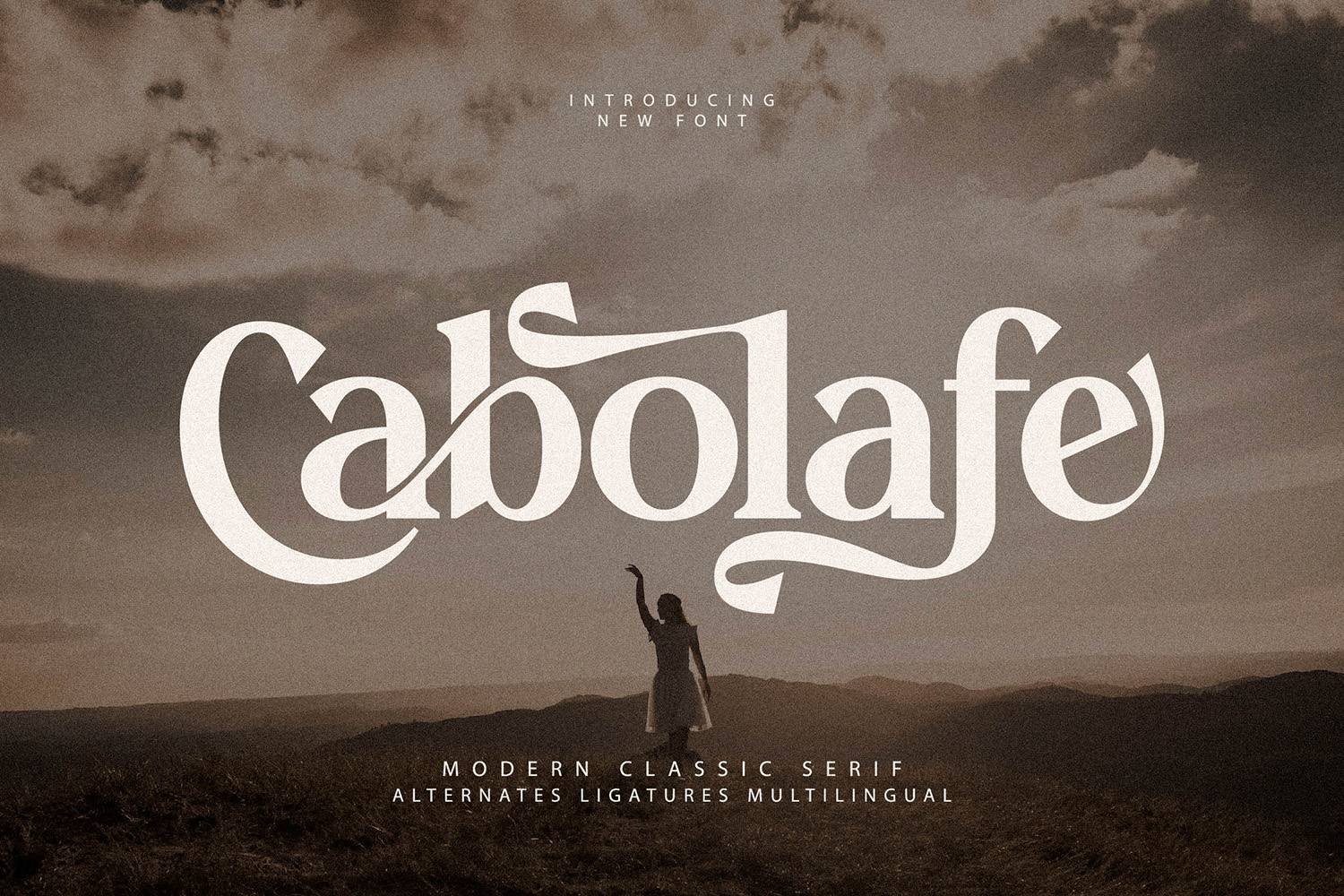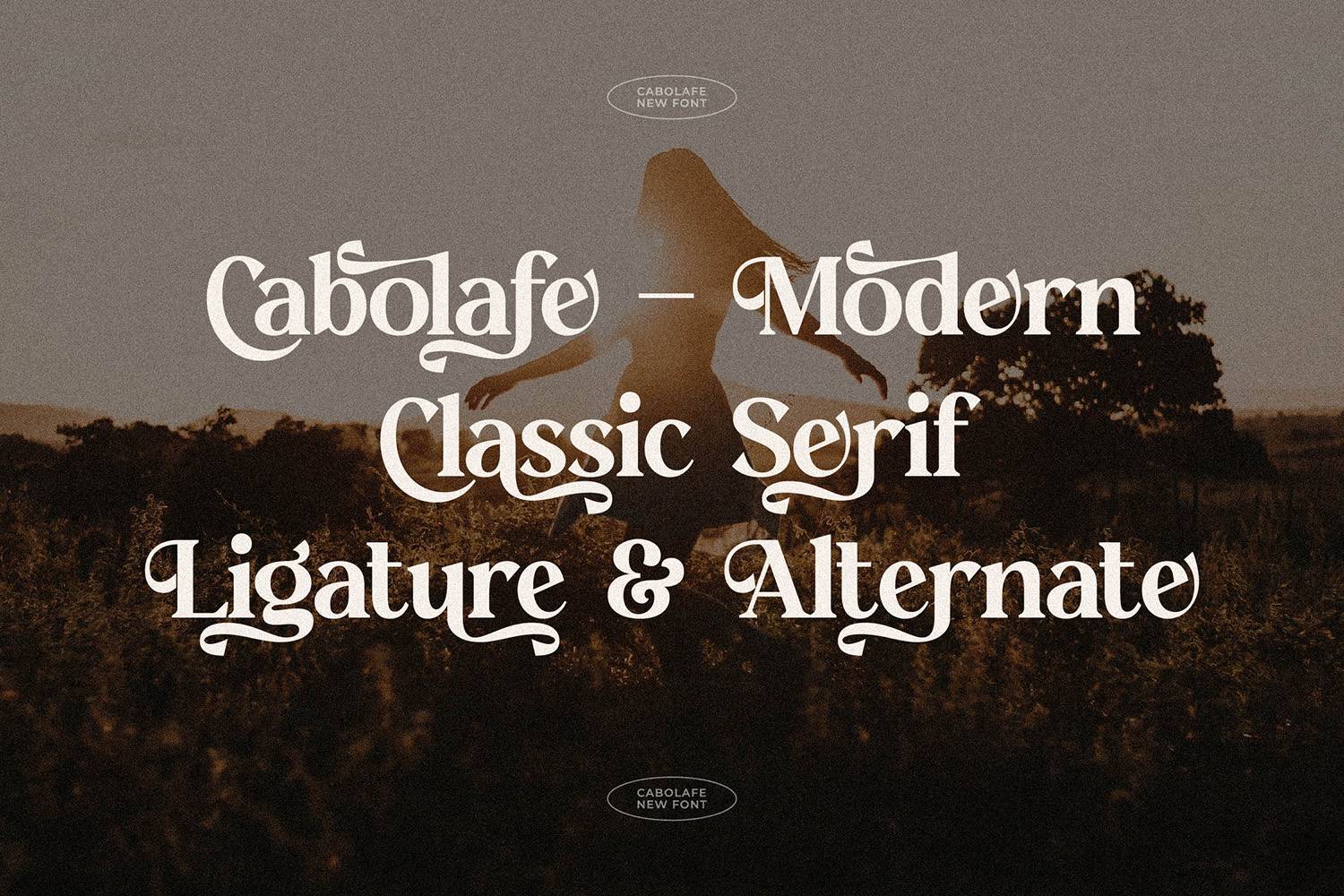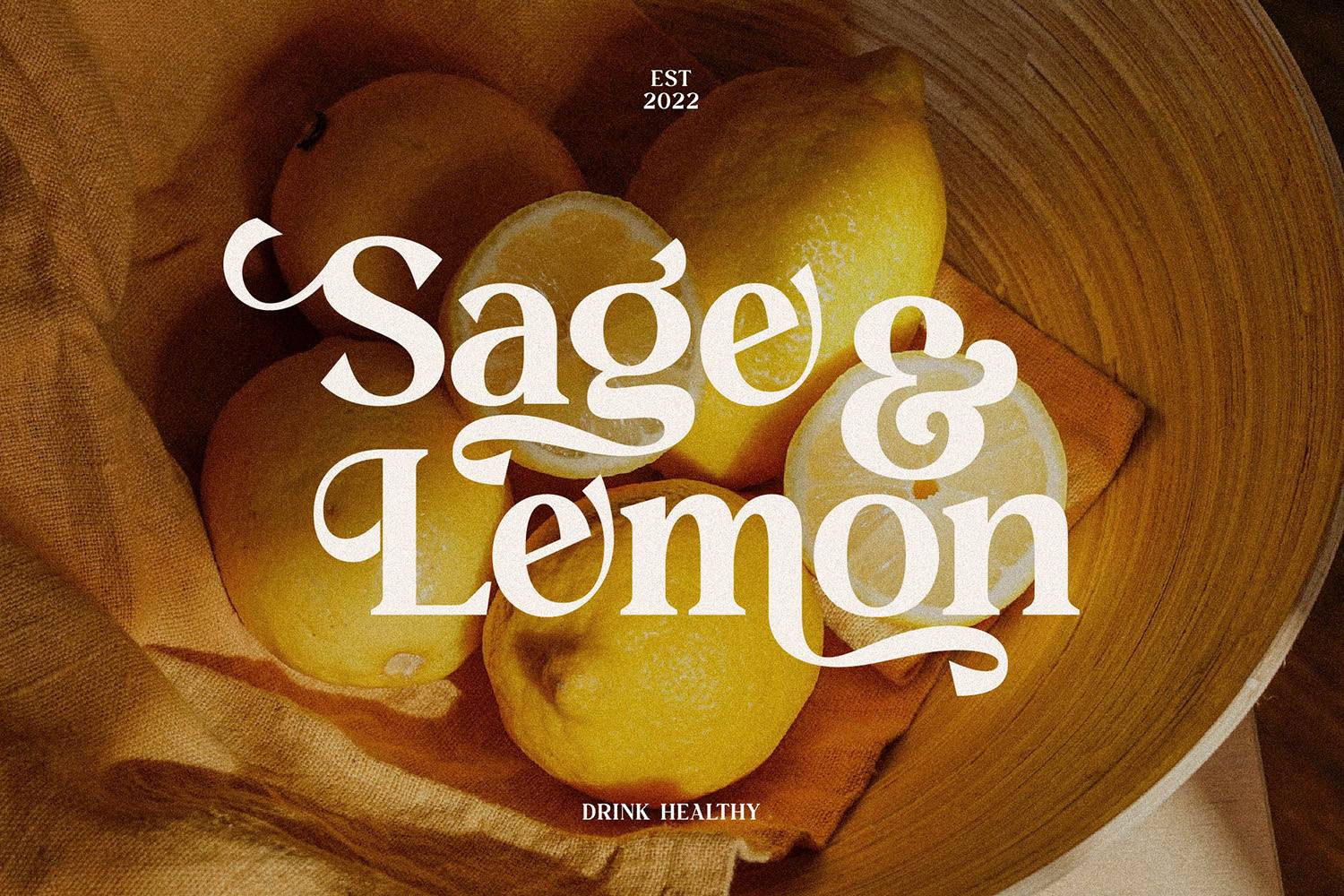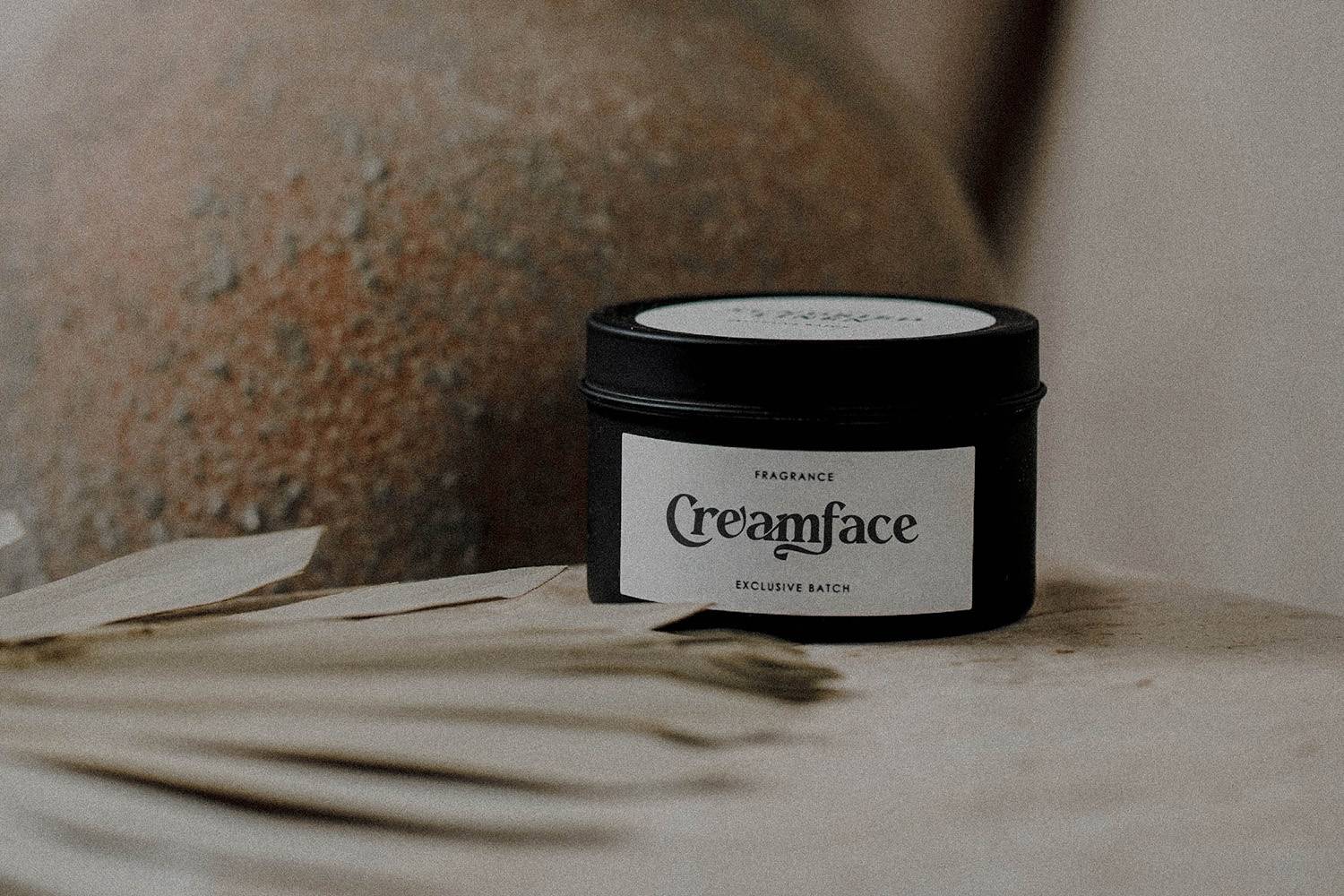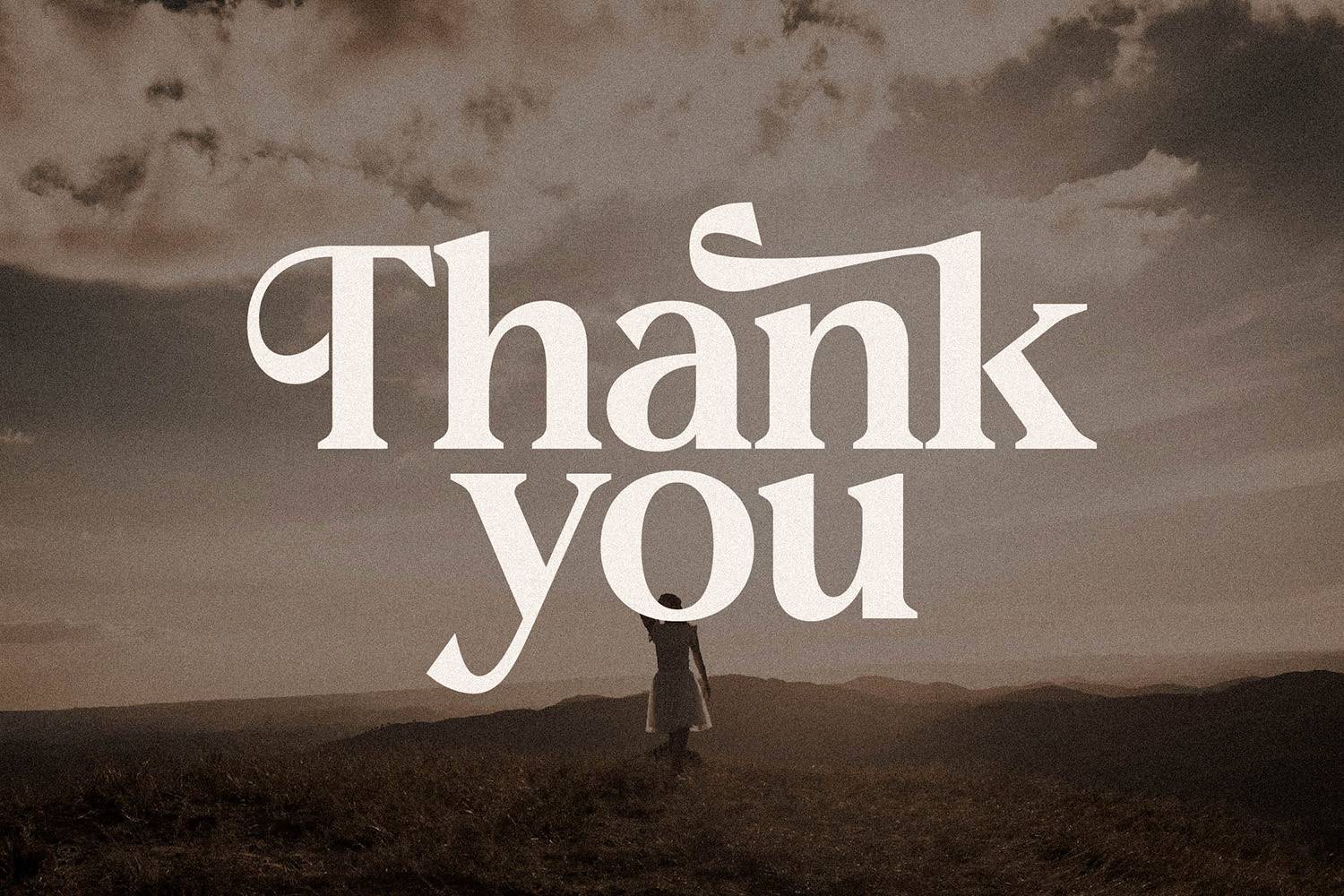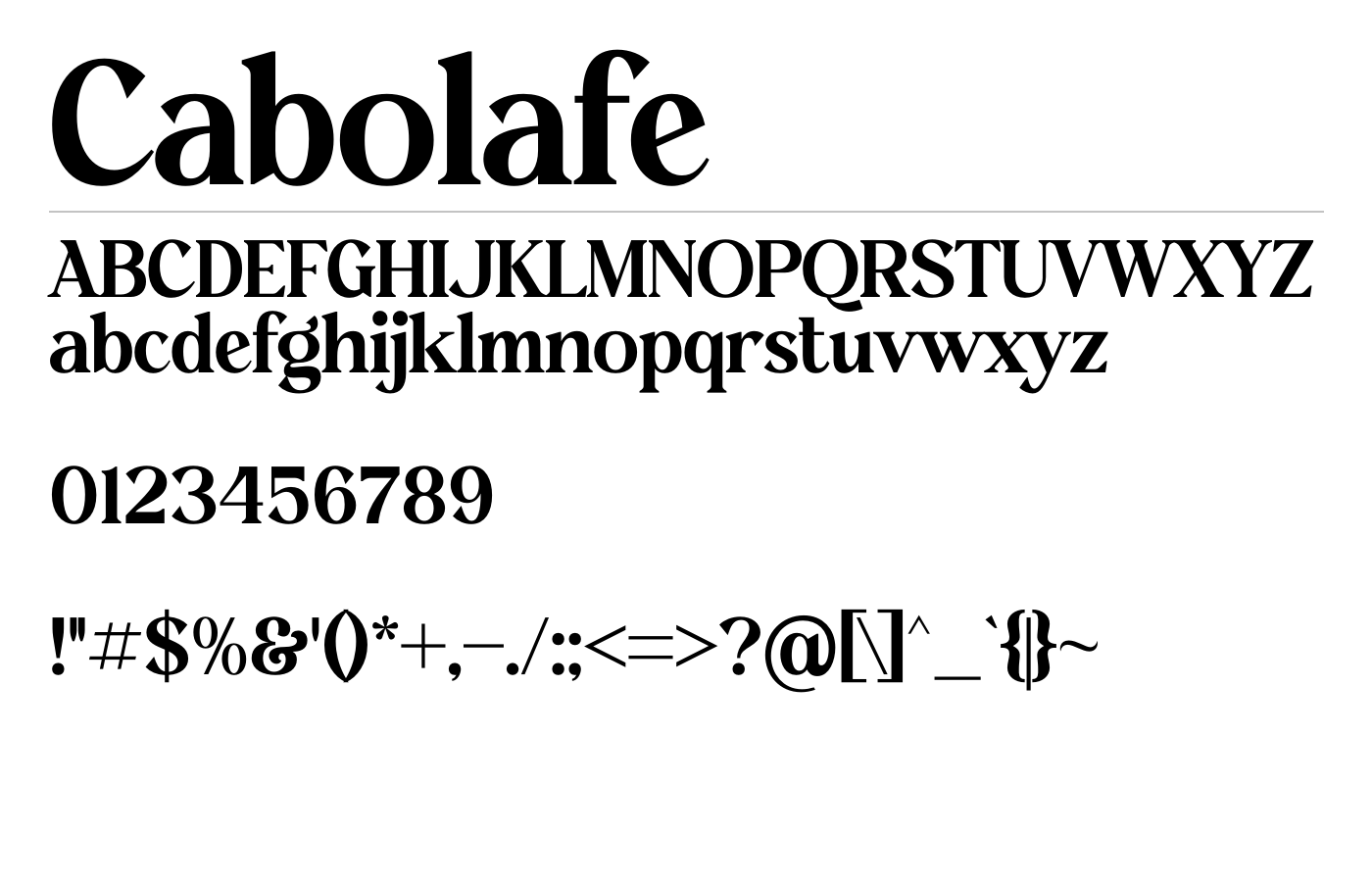
Cabolafe is a refined serif font characterized by its strong contrast between thick and thin strokes and elegant, bracketed serifs, giving it a classic yet contemporary feel. With its moderate x-height and well-balanced proportions, it works beautifully for sophisticated editorial design, luxury branding, and headlines that demand a timeless and authoritative presence. This font conveys elegance and professionalism, making it a great choice for projects seeking a polished and confident look.
Cabolafe Font